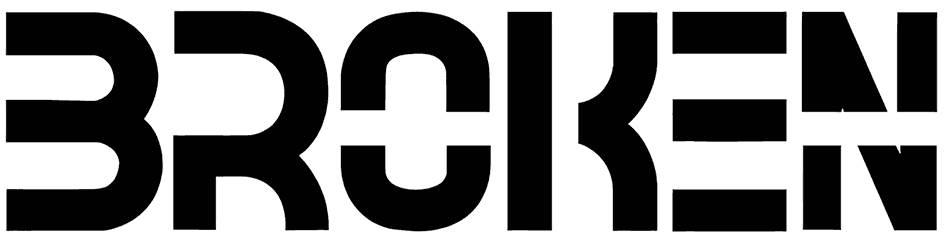
Broken Font
Broken is designed as if its lines were broken while writing or were cut with special precision. This stencil font is usually used in industrial and engineering projects, computer games, and fashion. Broken has different styles of breaks in its lines, which gives it a nice appearance and makes it look good in images, even without lowercase letters.
Broken is a cool, interesting and bold display font. Expertly designed to make your creation look out of this world, this font has the potential to take your creative ideas far further.